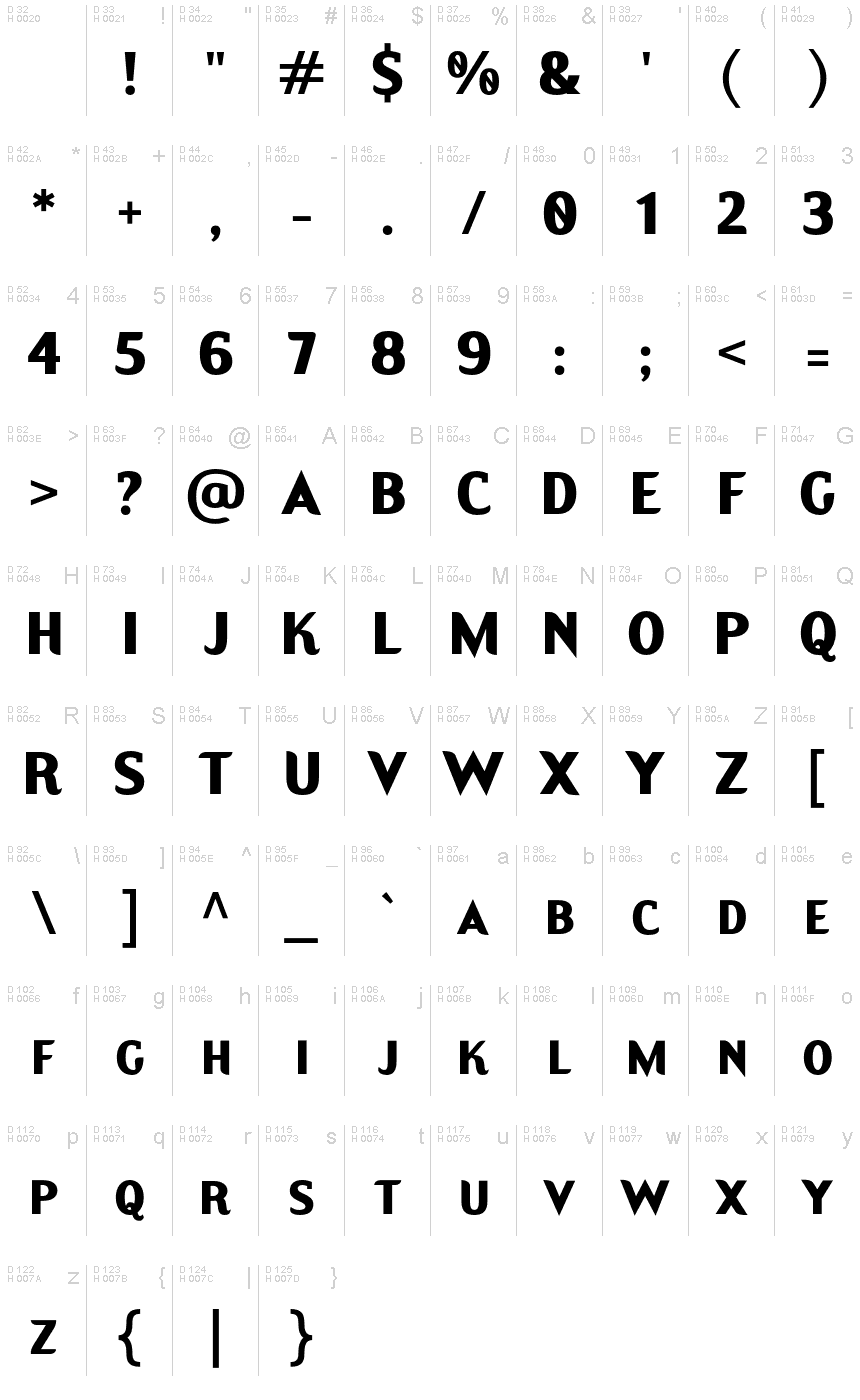
SilkyQueen-Regular
Silky Queen is a bold sans serif font designed by Faqih Fawaji, perfect for projects that require a strong and modern touch. With its clean lines and smooth edges, this font typeface is suitable for a variety of design projects, from branding to editorial layouts. Its bold weight makes it perfect for headlines, titles, and subheadings that need to stand out from the rest of the text. Silky Queen's versatility also makes it suitable for web design and digital graphics that require legibility on different screen sizes. Give your designs a regal touch with Silky Queen!